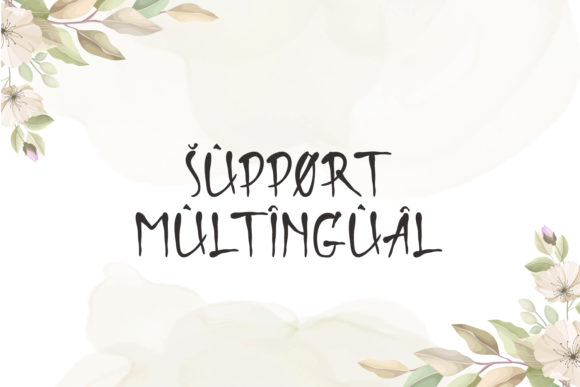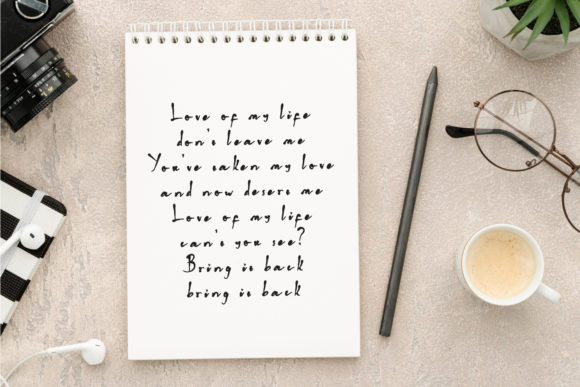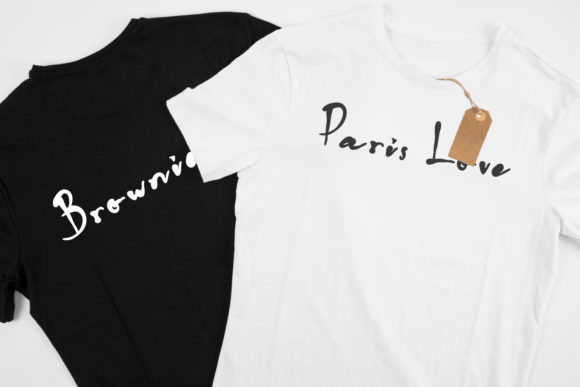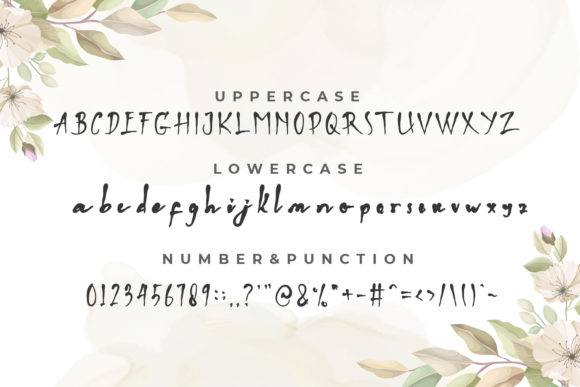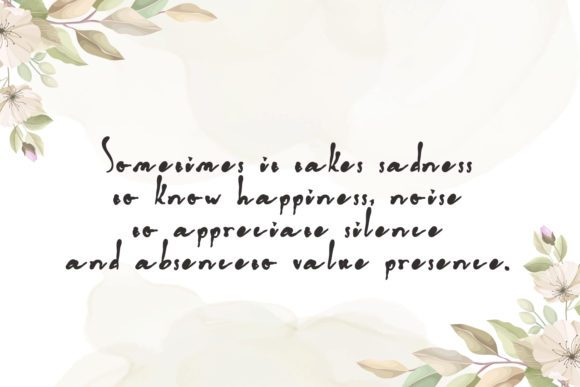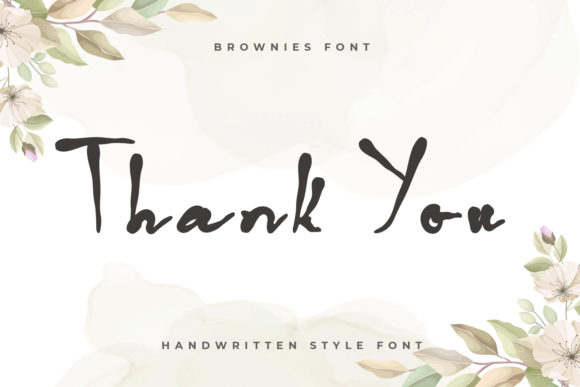
Discover the Perfect Companion for Your Creative Projects
Have you ever been brainstorming a new idea, and the right font just clicks into place, elevating the entire concept? For designers, finding that perfect font can be the difference between a good design and a great one. It’s in those moments that we stumble upon fonts like Brownies, a quirky and cute handwritten font that effortlessly brings a down-to-earth charm to any project.
Brownies Font is designed to be versatile, making it an excellent addition to various creative ideas, from quotes and shirt designs to websites, branding, and logos. Its casual nature makes it easy to read, and its charm is undeniable. Whether you’re working on a children’s design, a blog, or an invitation, Brownies Font is the perfect companion to bring your ideas to life.
Brownies Font Key Features
- Font Family: Brownies is a display font family designed for headings and titles.
- Character Count: The font family includes 240 characters, including uppercase and lowercase letters, numerals, and punctuation.
- Unique Characteristics: Brownies features a unique, hand-drawn style with bold lines and playful flourishes, making it ideal for creating eye-catching headings and titles.
Review of Brownies Font
Overall, I think the Brownies Font is a solid addition to any designer’s toolkit. Here are some things that I think work well:
- ✨ The font’s nostalgic feel is perfect for retro-themed designs or projects that need a touch of classic charm.
- ✨ The wide range of weights and styles available makes it easy to find the perfect fit for any project.
- ✨ The font is highly legible, even at smaller sizes, making it a great choice for body text or headings.
- ⚠️ The font may not be the best choice for modern or minimalist designs, as its nostalgic feel may clash with a more contemporary aesthetic.
- ⚠️ Some users may find the font’s irregularities and quirks distracting or difficult to read in certain contexts.
- ⚠️ The font may not be suitable for small text or fine typography, as its bold lines and rounded edges can make it difficult to read at very small sizes.
Overall, I think the Brownies Font is a fun and versatile choice for designers who want to add a touch of nostalgia to their projects. While it may not be the best choice for every project, it’s definitely worth considering for the right design.
The Brownies Font is perfect for designs that require a playful, whimsical touch. Some common use cases include:
- Social media graphics and flyers
- Business cards and brochures
- P